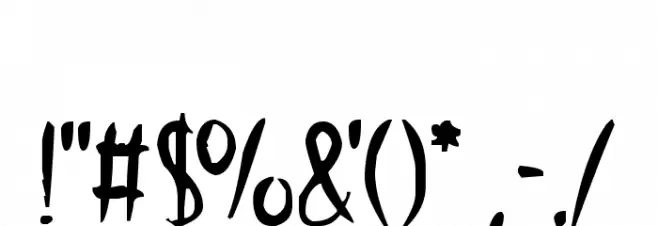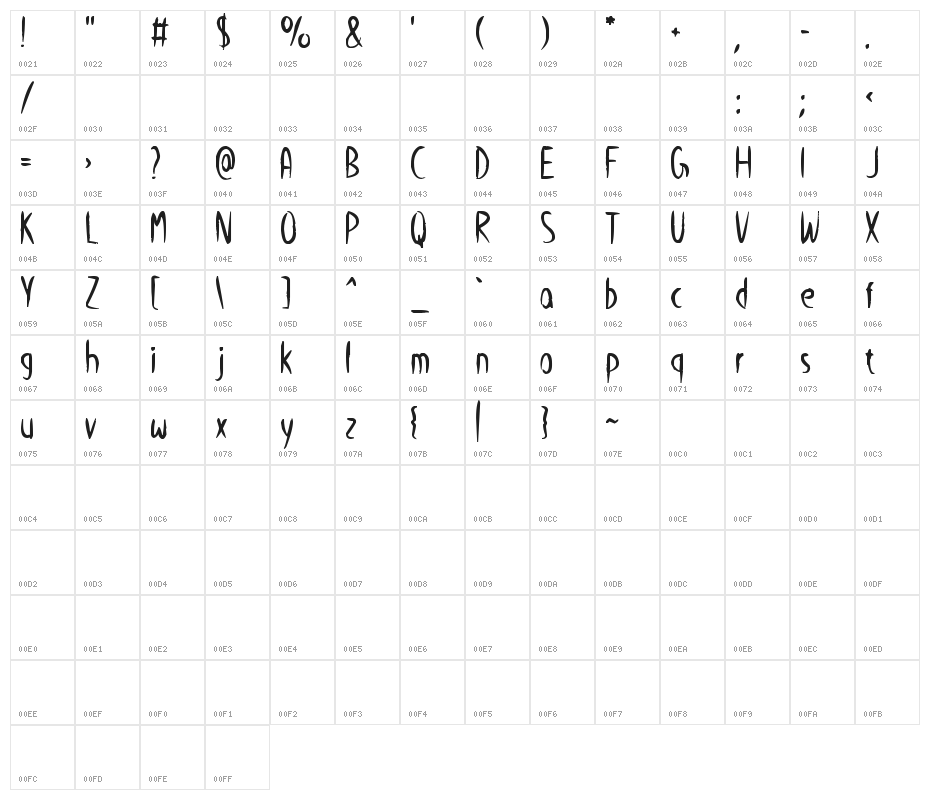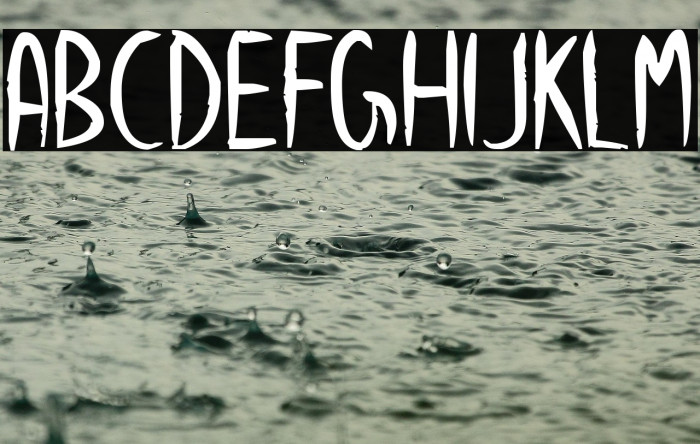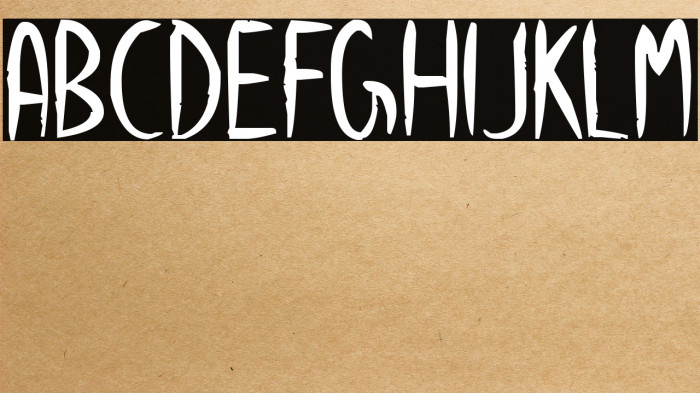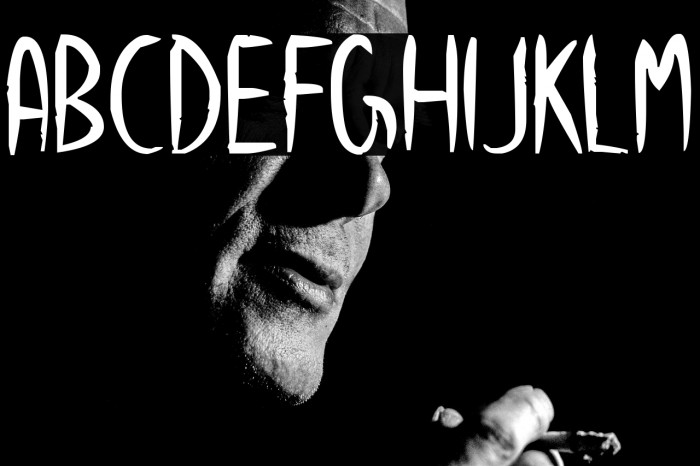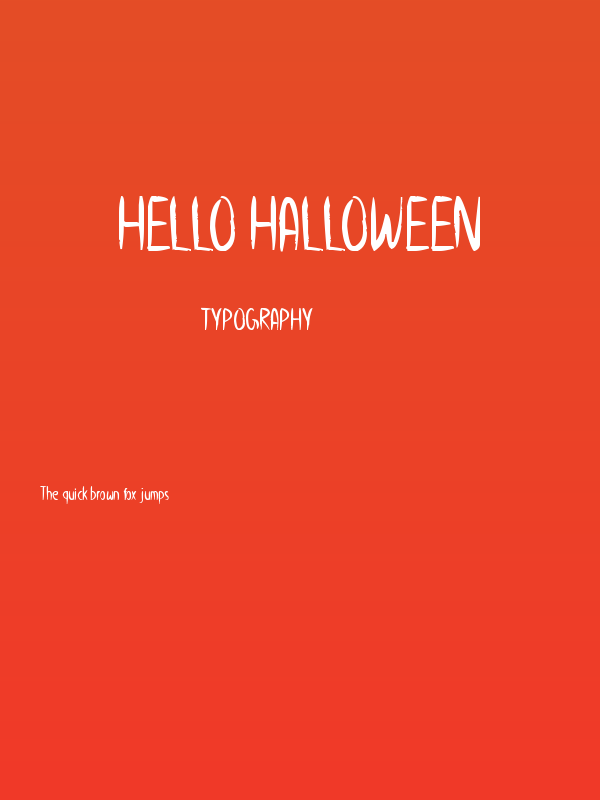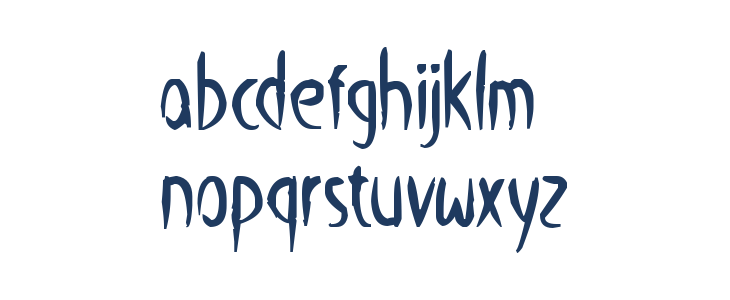
Hello Halloween Font
Hello Halloween Description
This font features a playful, spooky style with irregular, jagged edges that evoke a sense of Halloween fun. The characters are tall and narrow, with a hand-drawn appearance that adds to its whimsical and eerie charm. The uppercase and lowercase letters maintain a consistent style, with exaggerated curves and sharp points that give the font a dynamic and lively feel. The numbers and special characters follow the same design principles, ensuring a cohesive look across all elements. This font is perfect for adding a touch of spooky flair to any project, making it ideal for Halloween-themed designs or anything that requires a playful yet slightly ominous touch.
A playful, spooky font with jagged edges and a hand-drawn style, perfect for Halloween themes from Uncategorized fonts.
- Font: Hello Halloween
- Proposed Projects: Ideal for Halloween invitations, themed posters, party decorations, or any project needing a spooky, playful touch.
- Use Case: Headlines, Logos, Themed Designs